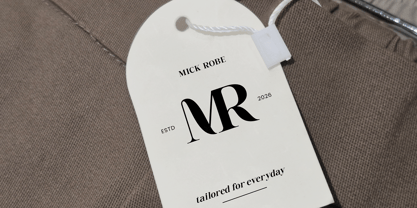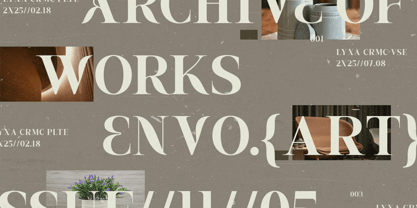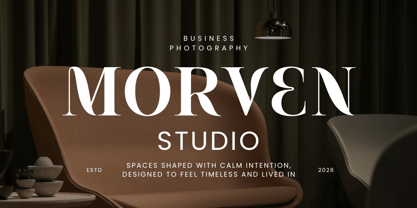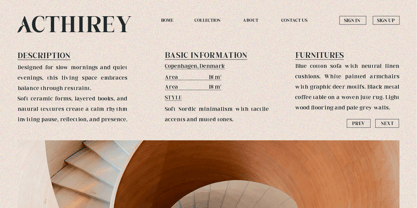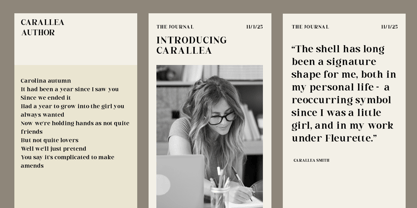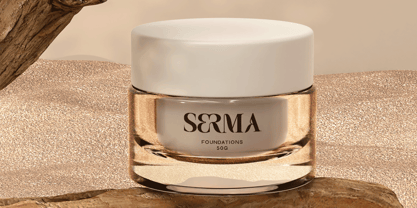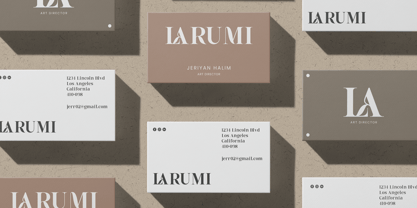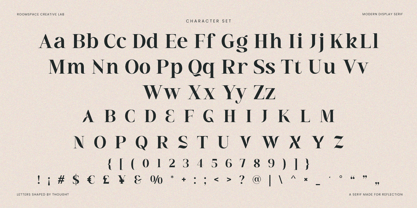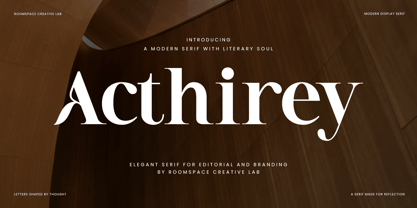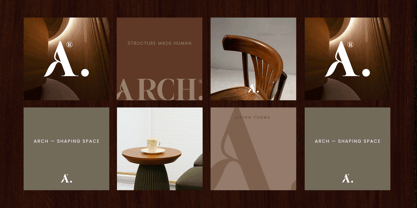
Acthirey
Die Schriftfamilie Acthirey wurde von Bakhrudin Ja'far entworfen und von Jafar07 veröffentlicht. Acthirey enthält 2 Stile und Familienpaketoptionen. Mehr über diese Familie
Acthirey is a modern display serif font designed with a literary soul and editorial precision. Its elegant proportions, expressive curves, and confident contrast make it ideal for high-end branding, magazines, book covers, and refined visual identities. Balancing classic serif influence with contemporary clarity, Acthirey delivers a timeless aesthetic that feels thoughtful, cultured, and visually strong across both print and digital use. Features Modern display serif design Elegant contrast and refined details Uppercase & lowercase Multilingual support Optimized spacing and readability Perfect For : Editorial design, branding systems, magazines, fashion brands, luxury logos, book covers, posters, and premium visual identities.
A little from my personal design & background: My name is Bakhrudin Ja'far, I live in Malang, Indonesia. I am currently completing my degree in visual communication design and I have worked as a lettering artist and logo designer for many years. I finally started my studio called roocspace creative lab (jafar07) Studio a few months ago and with my team made my letters into typography.